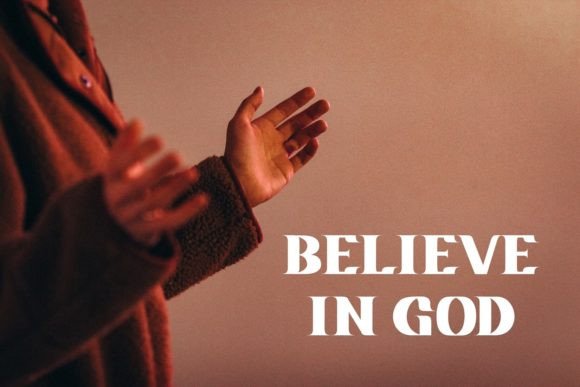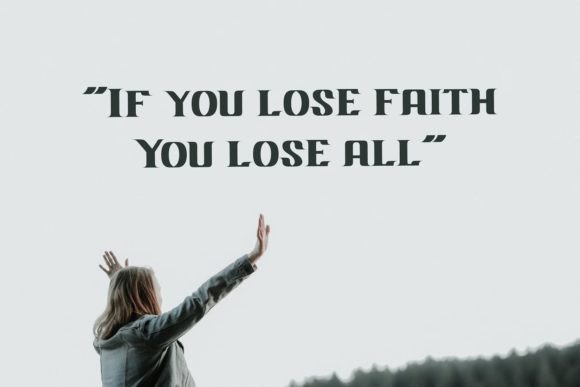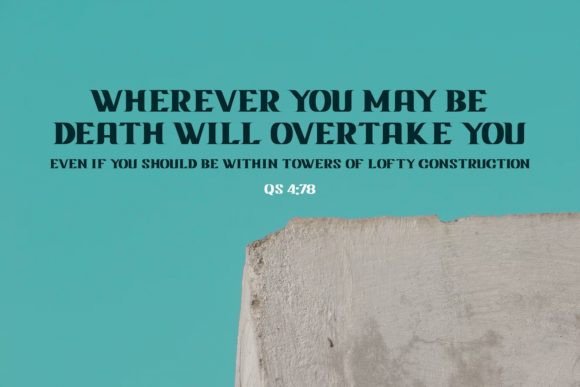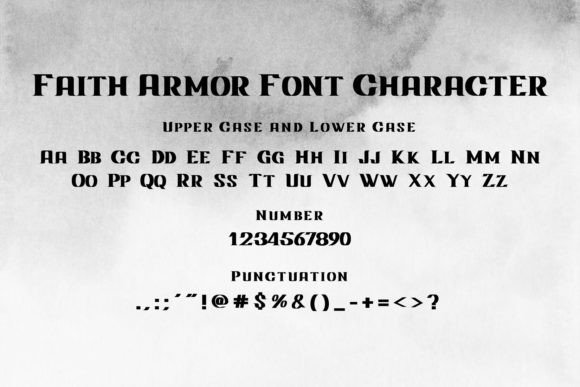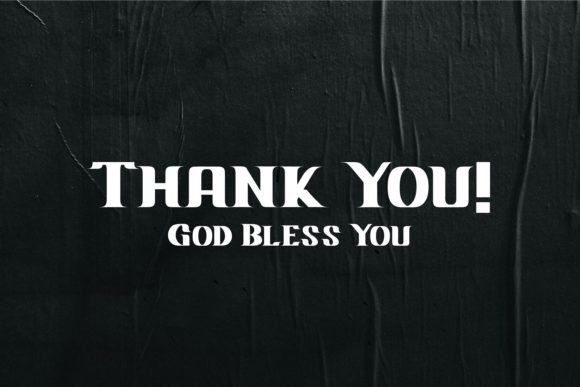
Introduction to Faith Armor Font
Introducing Faith Armor – Serif Bold Display Font Faith Armor is a serif display font.
Good for logotype, label, badge, headline, signature, packaging, and any more .
Key Features of Faith Armor Font